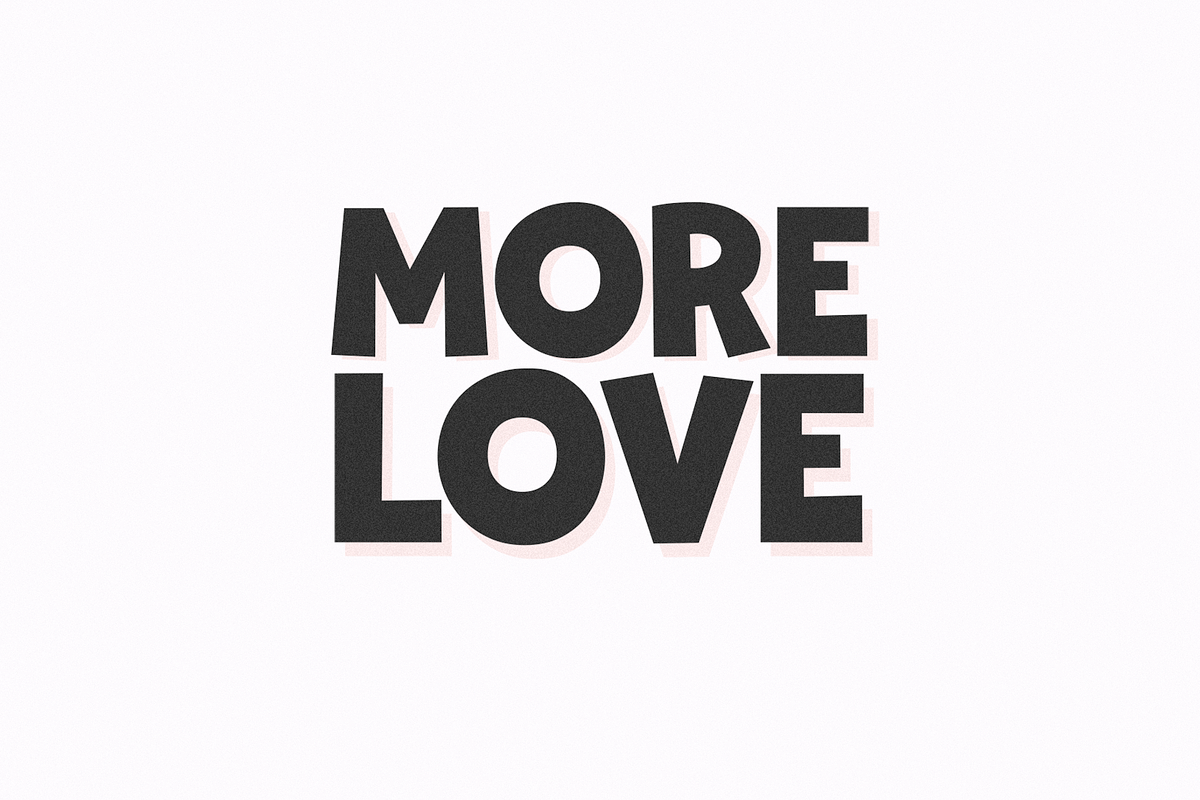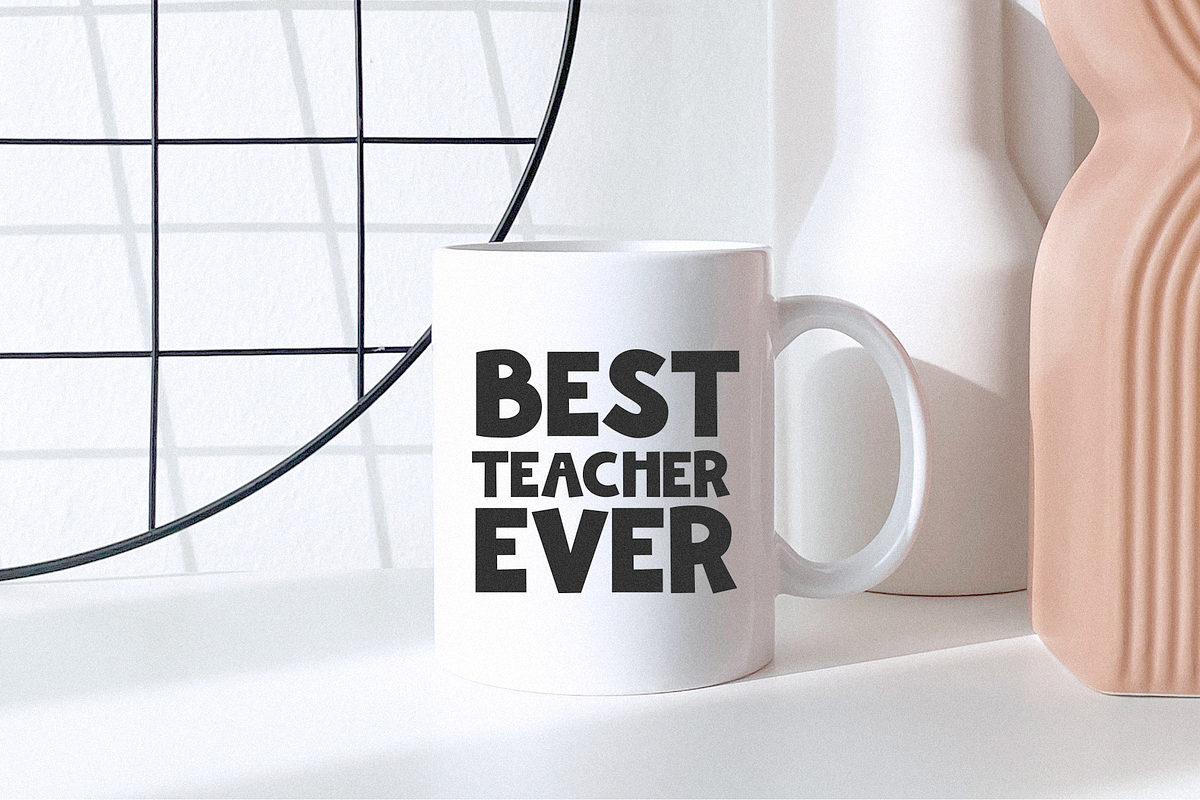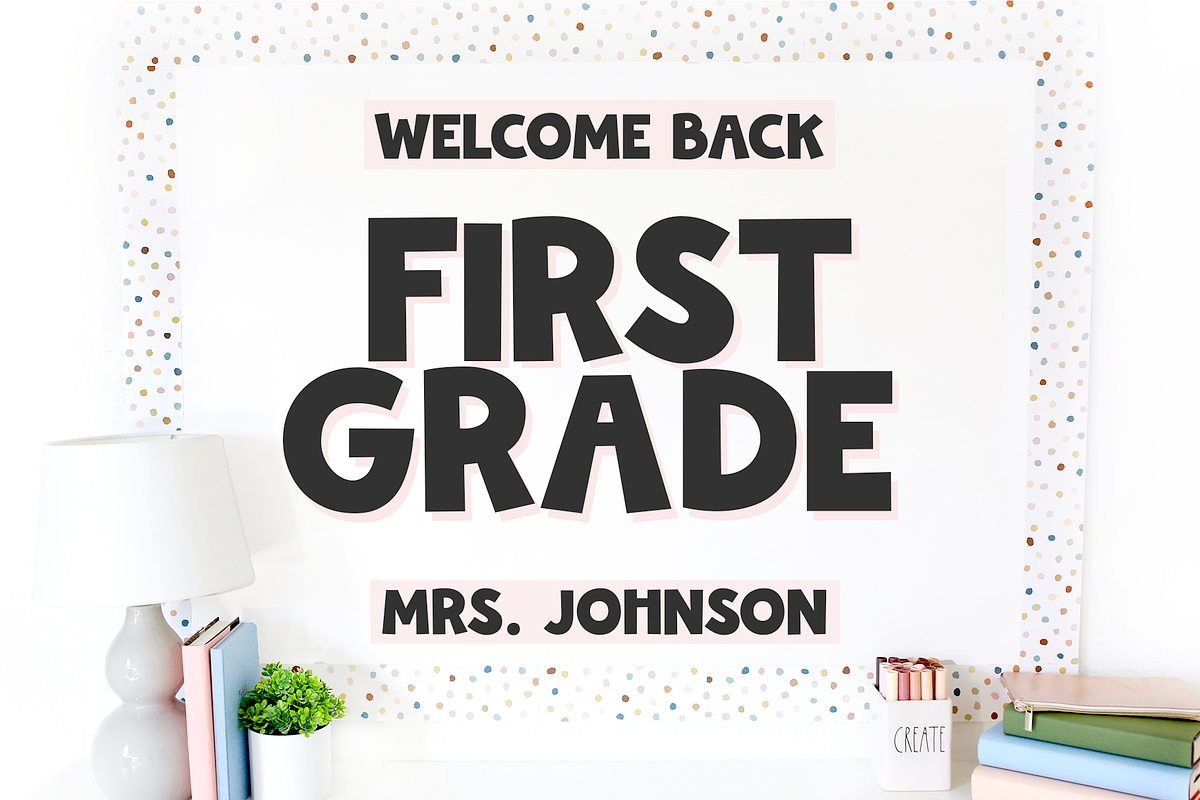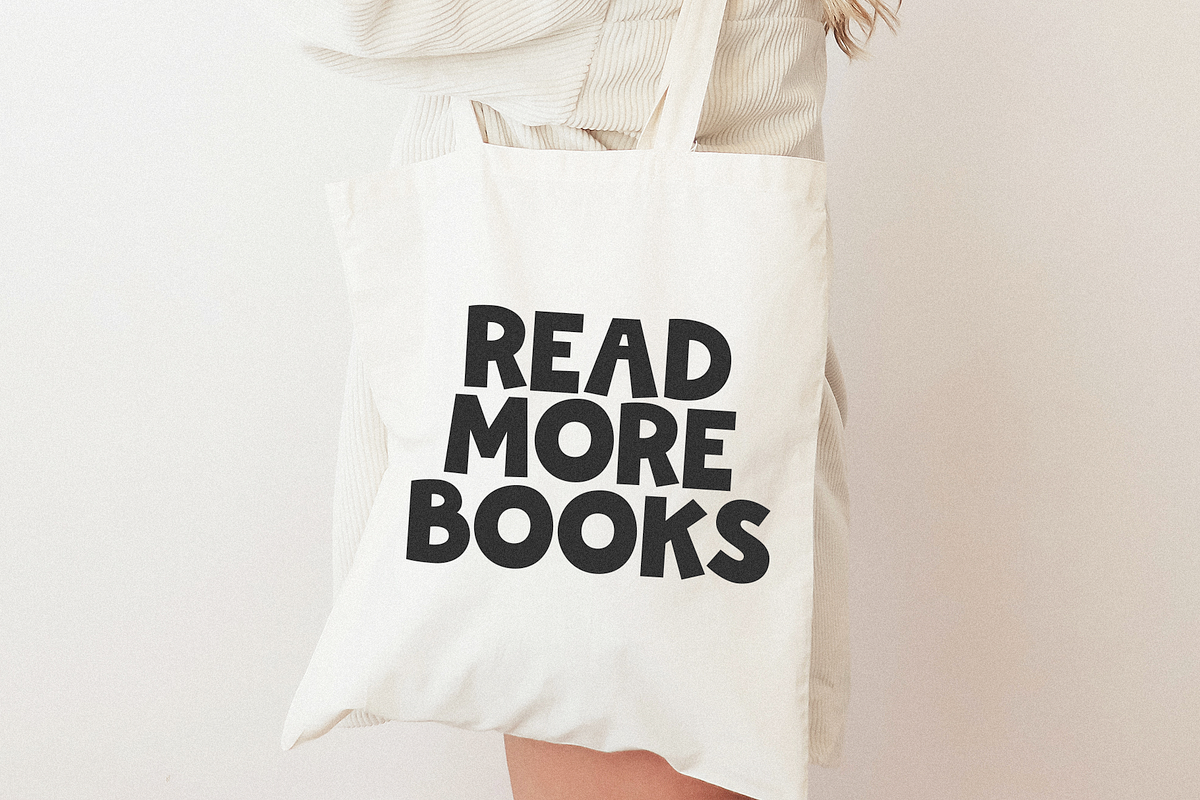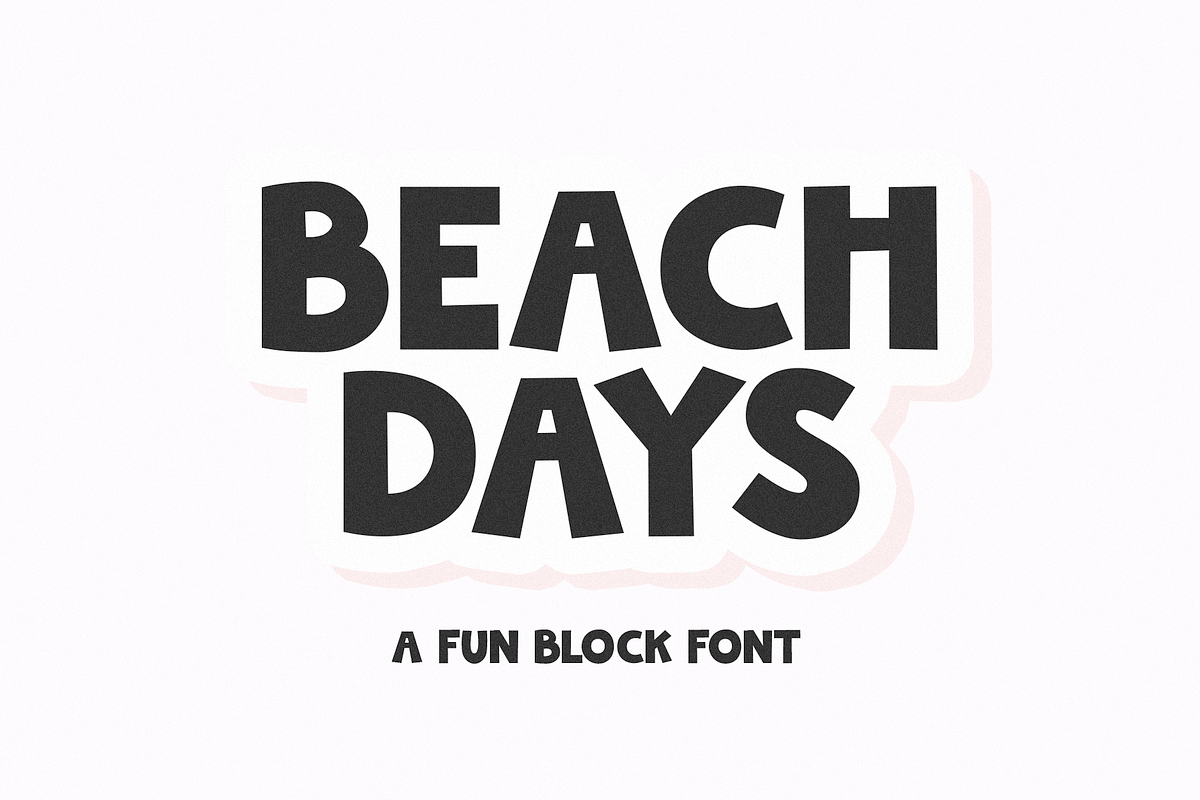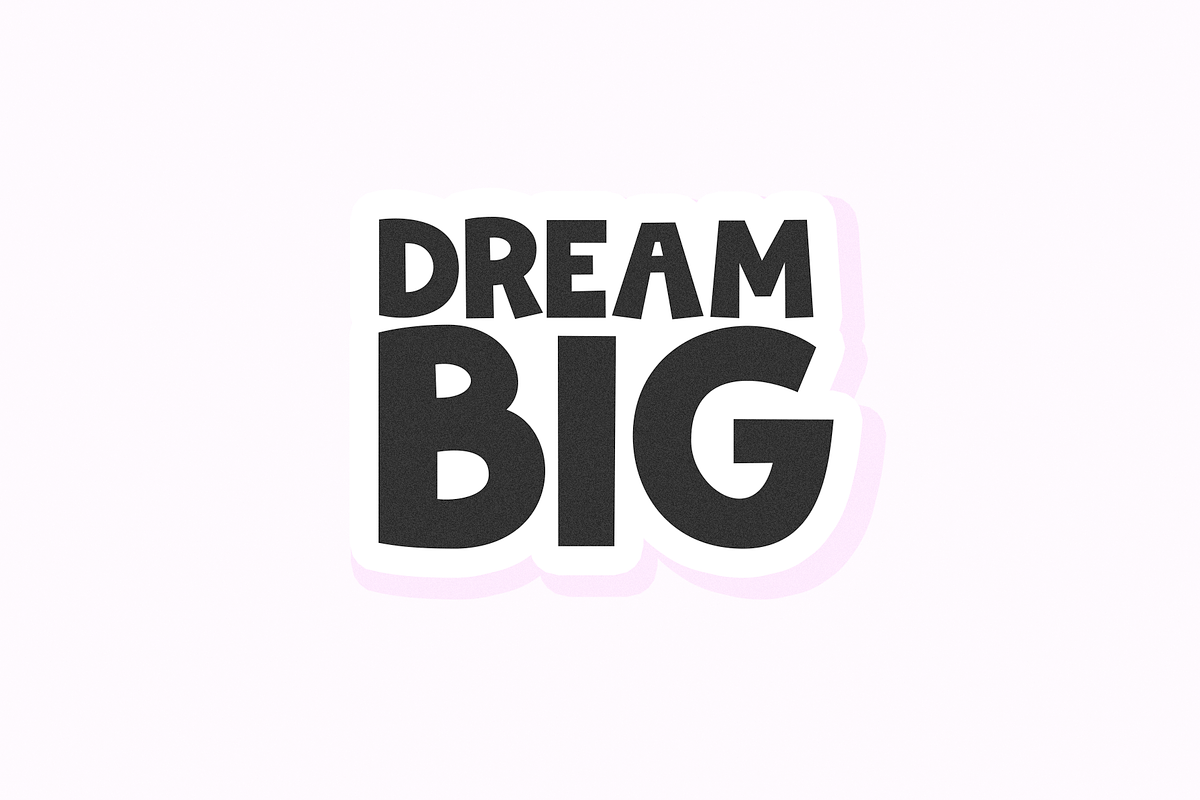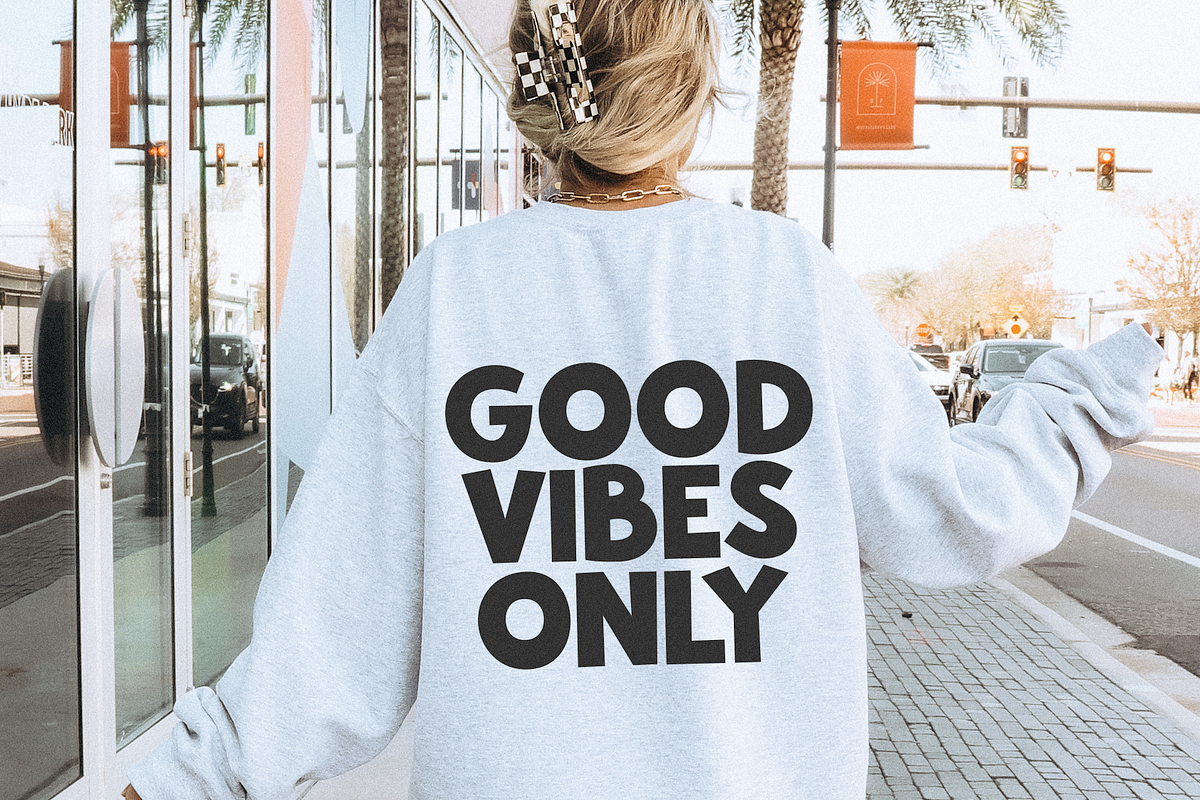
Beach Days | Bold Block Font
Beach Days is a fun handwritten font!
This font is perfect for svg files, logos, shirts, quotes, social media, craft projects, mugs, doormats, stickers and more!